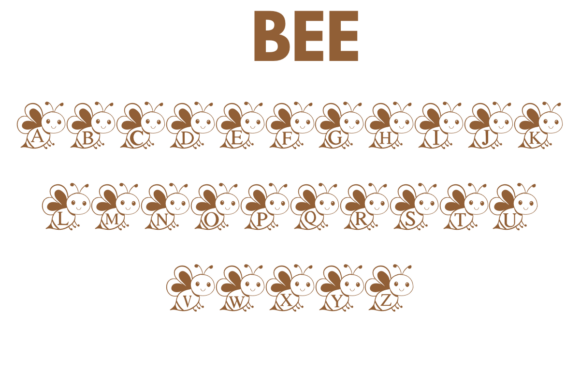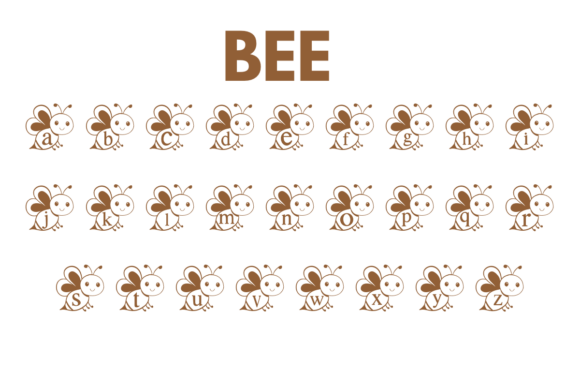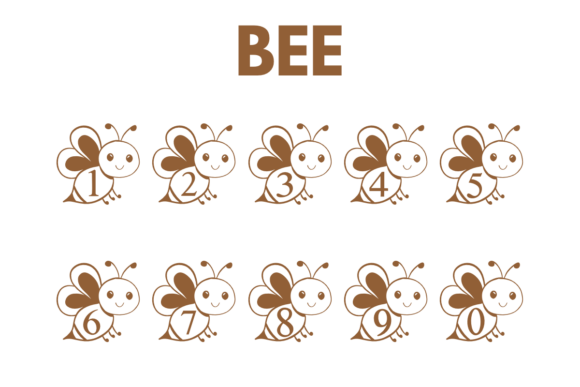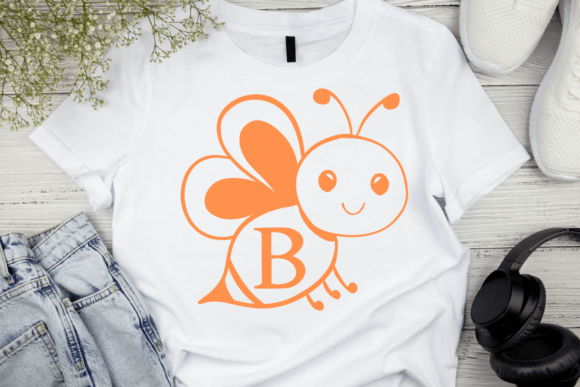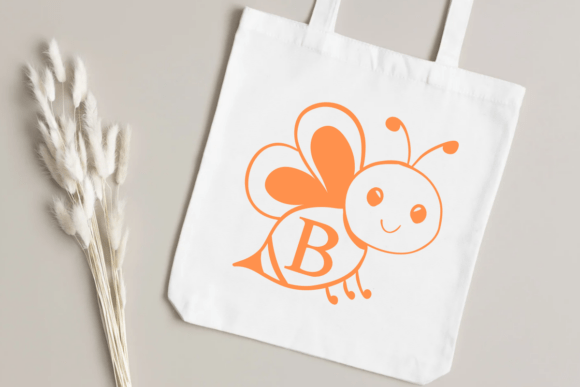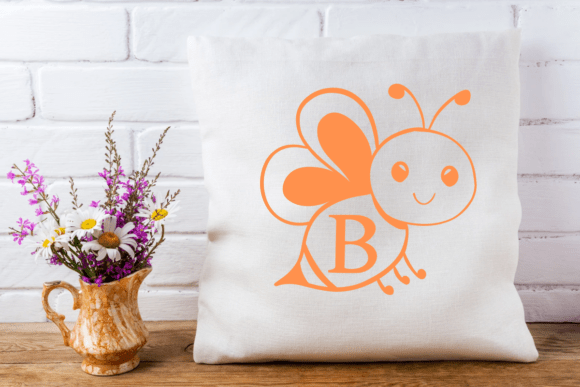
Bee Font: The Sweetest Decorative Font for Your Creative Projects
Are you looking for a font that’s as charming as a honeybee’s buzz? Look no further than Bee Font! This decorative font is perfect for adding a touch of whimsy and personality to your designs, from notes and diaries to greeting cards and more. In this article, we’ll explore the world of Bee Font and discover how you can use it to sweeten up your creative projects.
What is Bee Font?
Bee Font is a unique and eye-catching decorative font that’s designed to add a touch of playfulness to your designs. Its distinctive letters and flourishes are reminiscent of a bee’s busy wings, making it the perfect choice for projects that need a bit of personality. Whether you’re a designer, crafter, or simply a DIY enthusiast, Bee Font is a versatile and fun font that’s sure to inspire your creativity.
Uses for Bee Font
So, what can you use Bee Font for? The possibilities are endless! Here are just a few ideas to get you started:
- Note-taking and journaling: Add a touch of personality to your notes and diary entries with Bee Font. It’s the perfect way to make your writing feel more creative and expressive.
- Greeting cards and invitations: Make your cards and invitations stand out with Bee Font’s unique and playful design. Perfect for birthdays, weddings, and other special occasions.
- Banners and signs: Use Bee Font to create eye-catching banners and signs for parties, events, and more. Its bold and colorful design is sure to grab attention.
- Social media posts: Add a touch of whimsy to your social media posts with Bee Font. It’s a great way to make your content stand out and engage your followers.
- Mugs, cards, and shirts: Use Bee Font to create fun and personalized gifts for friends and family. Perfect for coffee mugs, greeting cards, and custom t-shirts.
- Stationery and craft projects: Bee Font is a great addition to any craft project, from scrapbooking to card making. Its playful design is sure to add a touch of personality to your creations.
Why Choose Bee Font?
So, why choose Bee Font for your creative projects? Here are just a few reasons:
- Unique and eye-catching design: Bee Font’s distinctive letters and flourishes make it a standout font that’s sure to grab attention.
- Versatile and flexible: Use Bee Font for a wide range of projects, from notes and diaries to banners and social media posts.
- Fun and creative: Bee Font is the perfect way to add a touch of personality and whimsy to your designs.
Tips for Using Bee Font
Here are a few tips for getting the most out of Bee Font:
- Experiment with colors and textures: Bee Font looks great in a range of colors and textures. Experiment with different combinations to find the one that works best for your project.
- Mix and match with other fonts: Bee Font pairs well with a range of other fonts. Try mixing and matching it with other fonts to create a unique and eye-catching design.
- Use it sparingly: Bee Font is a bold and eye-catching font. Use it sparingly to add emphasis and personality to your designs.
In conclusion, Bee Font is a sweet and charming decorative font that’s perfect for adding a touch of personality to your creative projects. Whether you’re a designer, crafter, or simply a DIY enthusiast, Bee Font is a versatile and fun font that’s sure to inspire your creativity. So why not give it a try and see what amazing designs you can create?